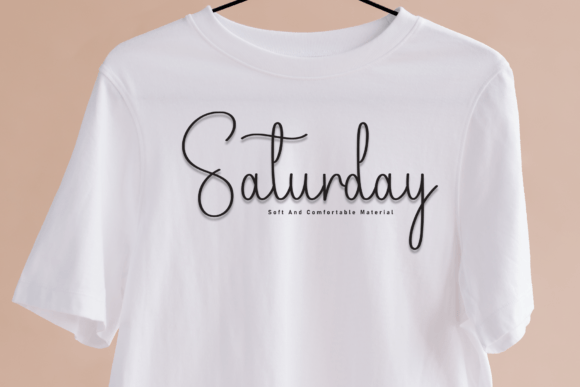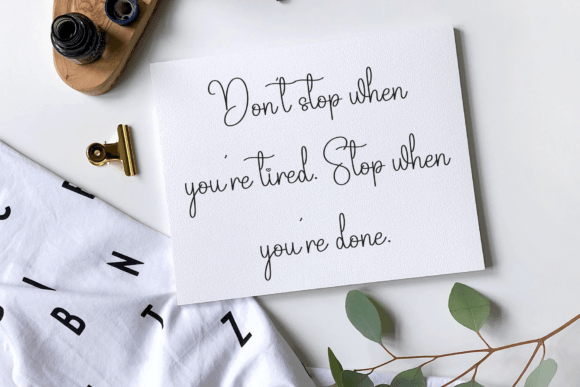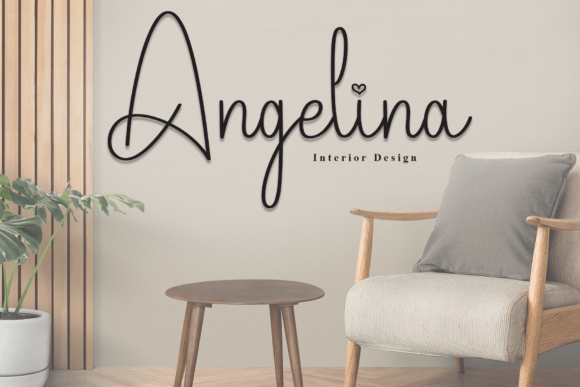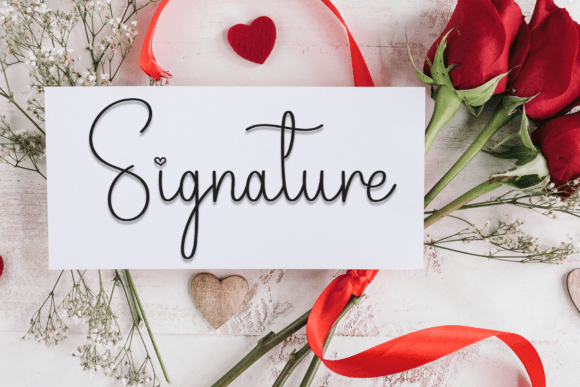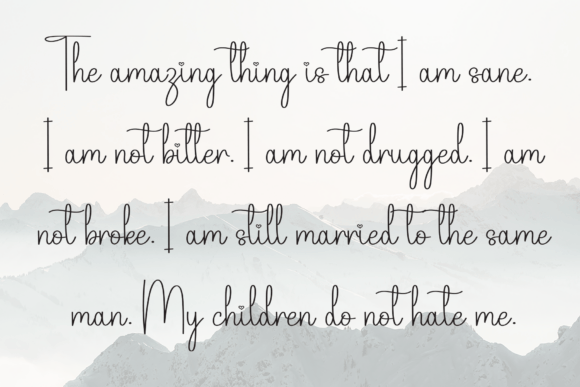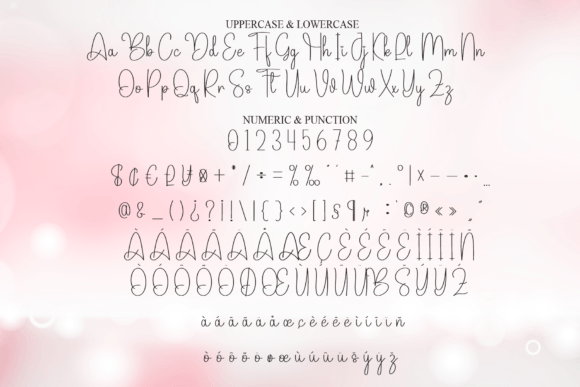
Introducing Beauty Font: The Ultimate Handwritten Display Font for Playful Designs
Are you tired of using the same old fonts in your designs? Do you want to add a touch of warmth and friendliness to your creations? Look no further than Beauty Font, a charming and affable handwritten display font that’s perfect for designers and crafters who want to infuse their work with a sprinkle of playfulness and sweetness.
The Perfect Font for Playful Designs
Beauty Font is designed to make your designs irresistibly attractive. With its effortlessly cute and enchanting aesthetic, this font is perfect for adding a touch of joy to any design endeavor. Whether you’re designing wedding invitations, crafting cards, or creating social media graphics, Beauty Font is the ultimate tool to help you stand out from the crowd.
What Makes Beauty Font So Special?
So, what sets Beauty Font apart from other fonts on the market? Here are just a few features that make it a must-have for designers and crafters:
- Handwritten with love: Beauty Font is a carefully crafted handwritten display font that exudes warmth and friendliness. Each letter is written with love and care, giving the font a personal and approachable feel.
- Playful and sweet: This font is perfect for designers who want to add a touch of playfulness and sweetness to their creations. Whether you’re designing for a children’s brand or creating a whimsical wedding invitation, Beauty Font is the perfect choice.
- Versatile and adaptable: Beauty Font is versatile and adaptable, making it perfect for a wide range of design applications. Use it for titles, headings, and body text to add a touch of personality to your designs.
- Effortlessly cute: Let’s face it – who doesn’t love cute? Beauty Font is effortlessly cute, making it perfect for designers who want to create designs that are both fun and sophisticated.
How to Use Beauty Font in Your Designs
Using Beauty Font in your designs is easy. Here are a few tips to get you started:
- Pair it with bold fonts: Beauty Font pairs perfectly with bold fonts, creating a striking contrast that’s sure to grab attention.
- Use it for titles and headings: Beauty Font is perfect for titles and headings, adding a touch of personality and whimsy to your designs.
- Add it to your branding: If you’re looking for a way to add a touch of personality to your branding, Beauty Font is the perfect choice. Use it for your logo, website, or social media graphics to create a cohesive and recognizable brand identity.
Why Designers and Crafters Love Beauty Font
Beauty Font has quickly become a favorite among designers and crafters, and for good reason. Here are just a few reasons why:
- Easy to read: Despite its playful aesthetic, Beauty Font is easy to read, making it perfect for body text and other applications where legibility is key.
- Unique and distinctive: Beauty Font is a unique and distinctive font that’s sure to set your designs apart from the crowd.
- High-quality design: Beauty Font is a high-quality design that’s been carefully crafted to ensure that it looks great in any design application.
In conclusion, Beauty Font is a charming and affable handwritten display font that’s perfect for designers and crafters who want to add a touch of playfulness and sweetness to their creations. With its effortlessly cute and enchanting aesthetic, this font is sure to make your designs irresistibly attractive. Whether you’re designing wedding invitations, crafting cards, or creating social media graphics, Beauty Font is the ultimate tool to help you infuse your work with a sprinkle of joy and personality.
Get Ready to Fall in Love with Beauty Font
So, what are you waiting for? Get ready to fall in love with Beauty Font and take your designs to the next level. With its unique and distinctive aesthetic, this font is sure to become a favorite in your design toolkit. So, go ahead and give it a try – we promise you won’t be disappointed!